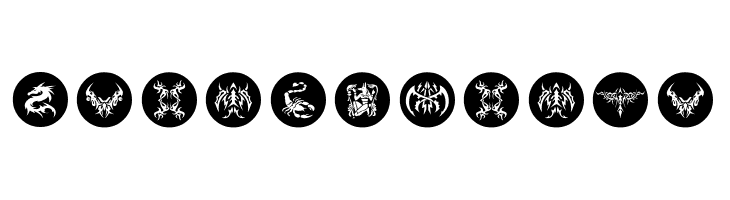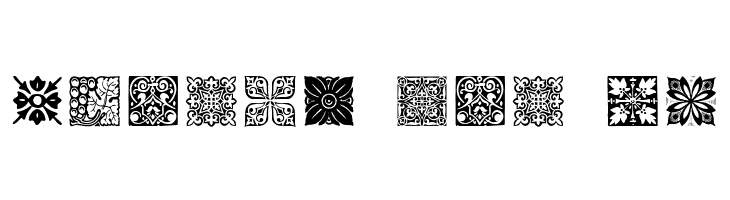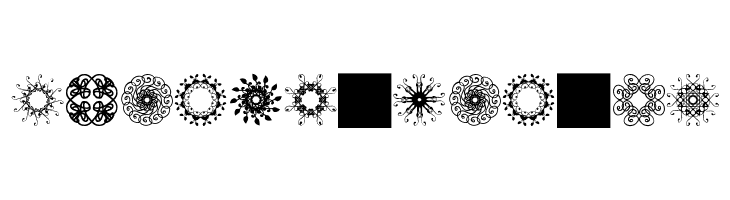
Art Nouveau-inspired ornamental designs with floral and geometric motifs.
An ornamental Art Nouveau-inspired font with intricate floral patterns.
Ornamental icon set with East Asian-inspired geometric and floral motifs.
Ornamental font with diverse decorative corner motifs.
Ornate paisley-patterned decorative font.
Ornate floral illustration dingbat set with vintage flair.
Ornate, vintage-inspired decorative motifs with intricate detailing.
Ornamental bird stencil illustrations for decorative use.
Ornamental motif dingbat font with floral and decorative elements.
A collection of decorative and plain rectangular frame glyphs.
Ornamental motif font with decorative flourishes and dividers.
Ornamental divider and frame glyph set with decorative and geometric styles.
A decorative frame dingbat set with diverse border styles.
Highly decorative corner motif set with varied ornate and geometric styles.
Ornamental font with medieval motif designs.
Ornamental dingbat font with flourishes and decorative motifs.
Ornamental medieval-style decorative glyph set.
Ornamental divider glyphs with intricate, symmetrical designs.
Geometric tile-patterned decorative display font.
Geometric display font with decorative floor tile patterns.
Ornate Victorian-inspired ornamental glyphs.
An elegant and playful font with thin strokes and ornamental flourishes.
Ornamental and decorative glyph set with intricate flourishes and motifs.
Decorative floral stencil font with unique plant illustrations for each character.